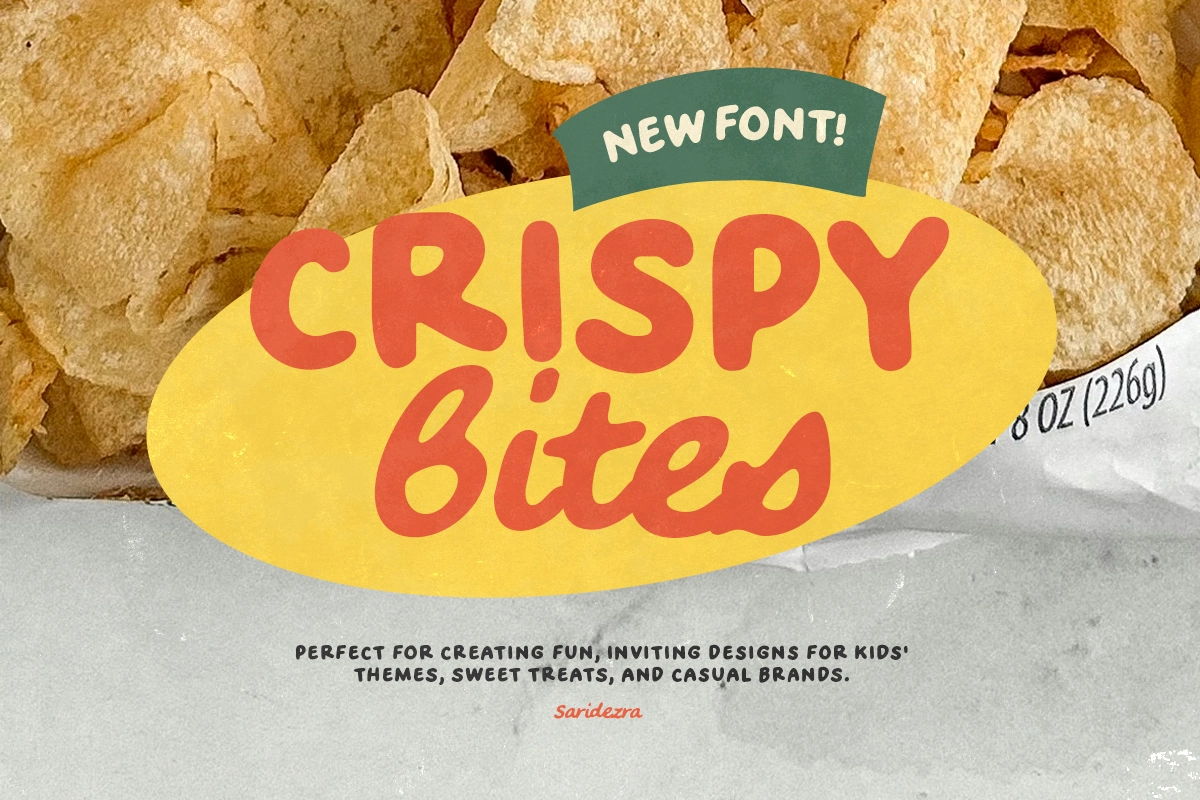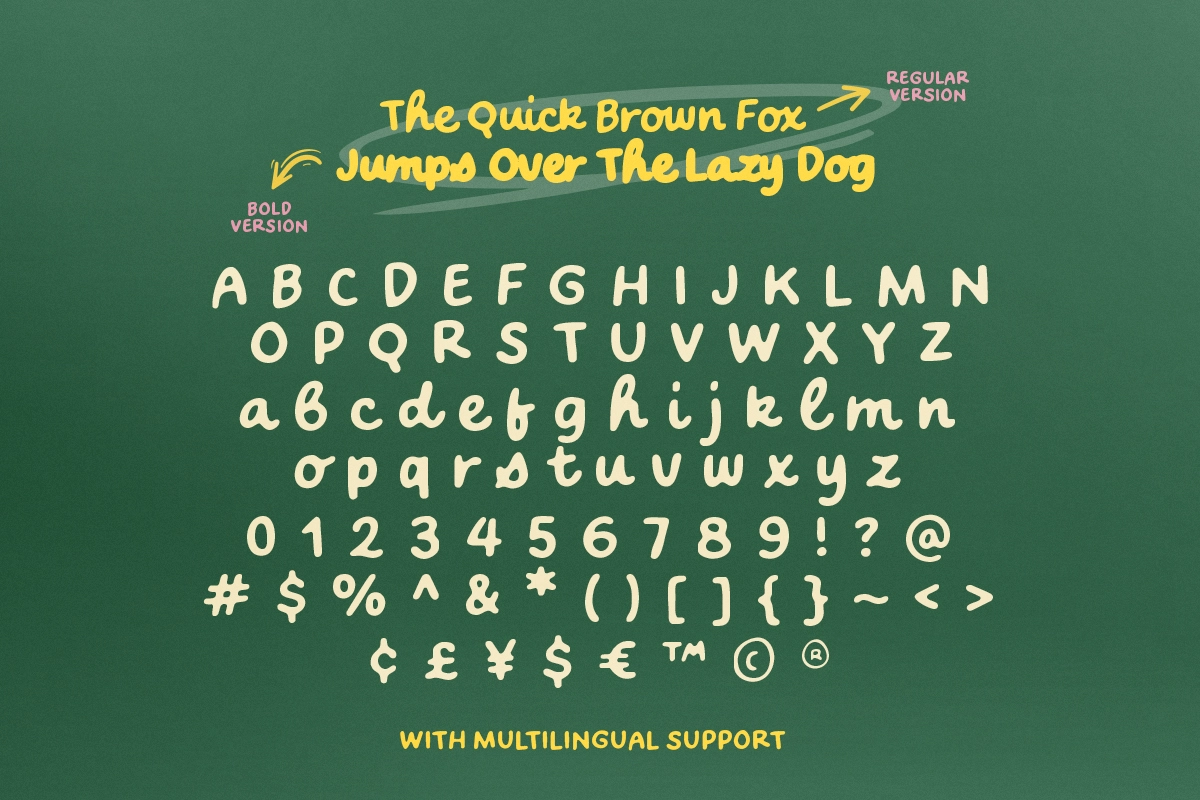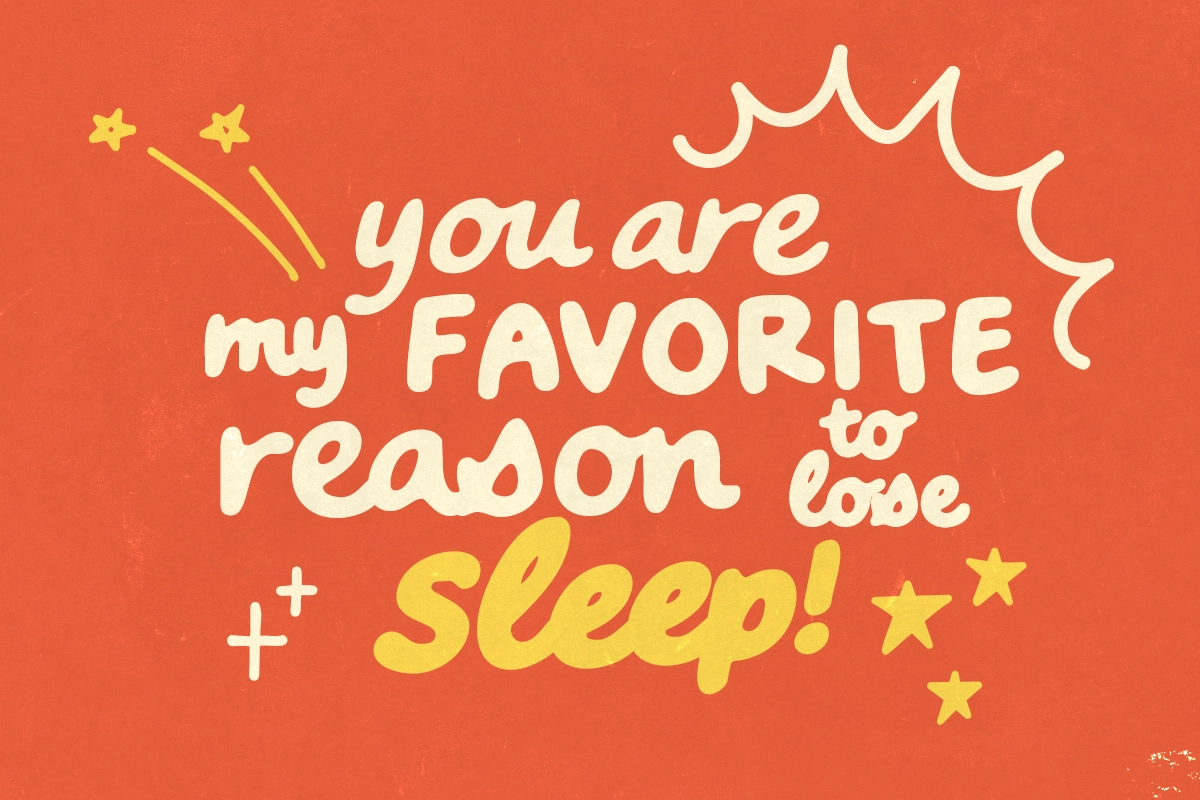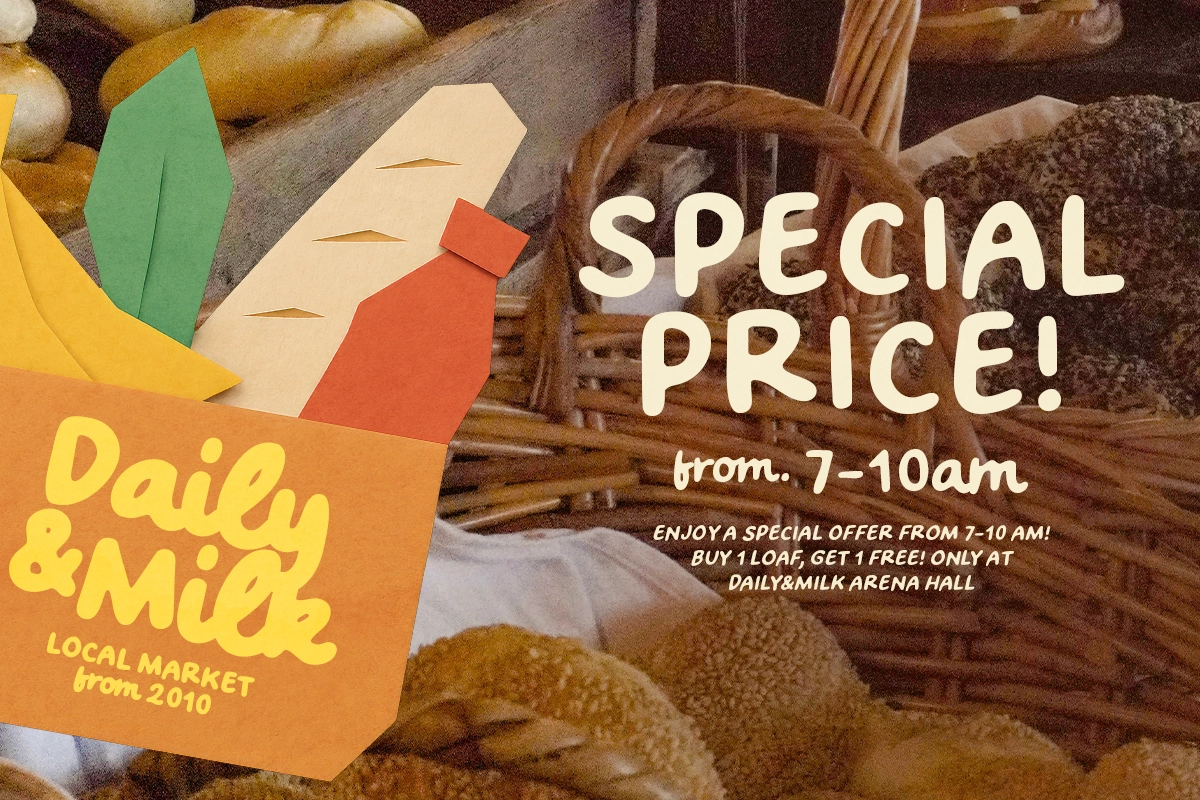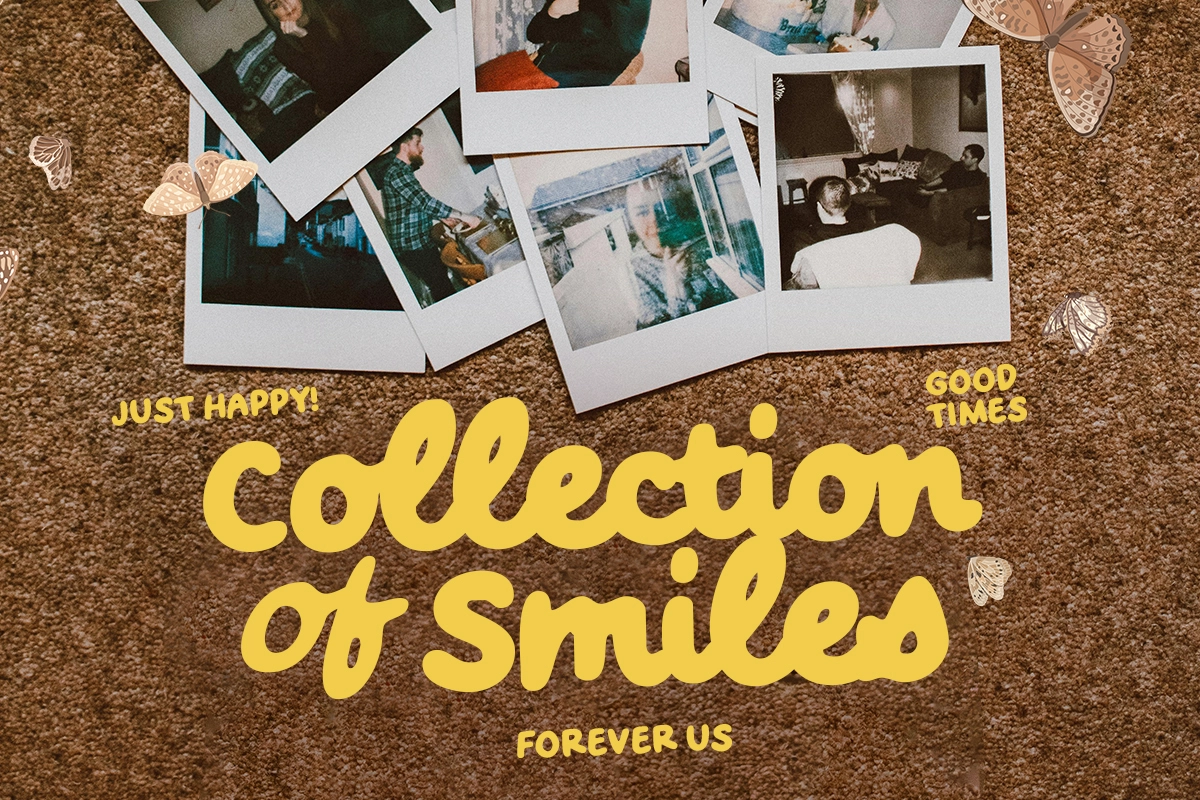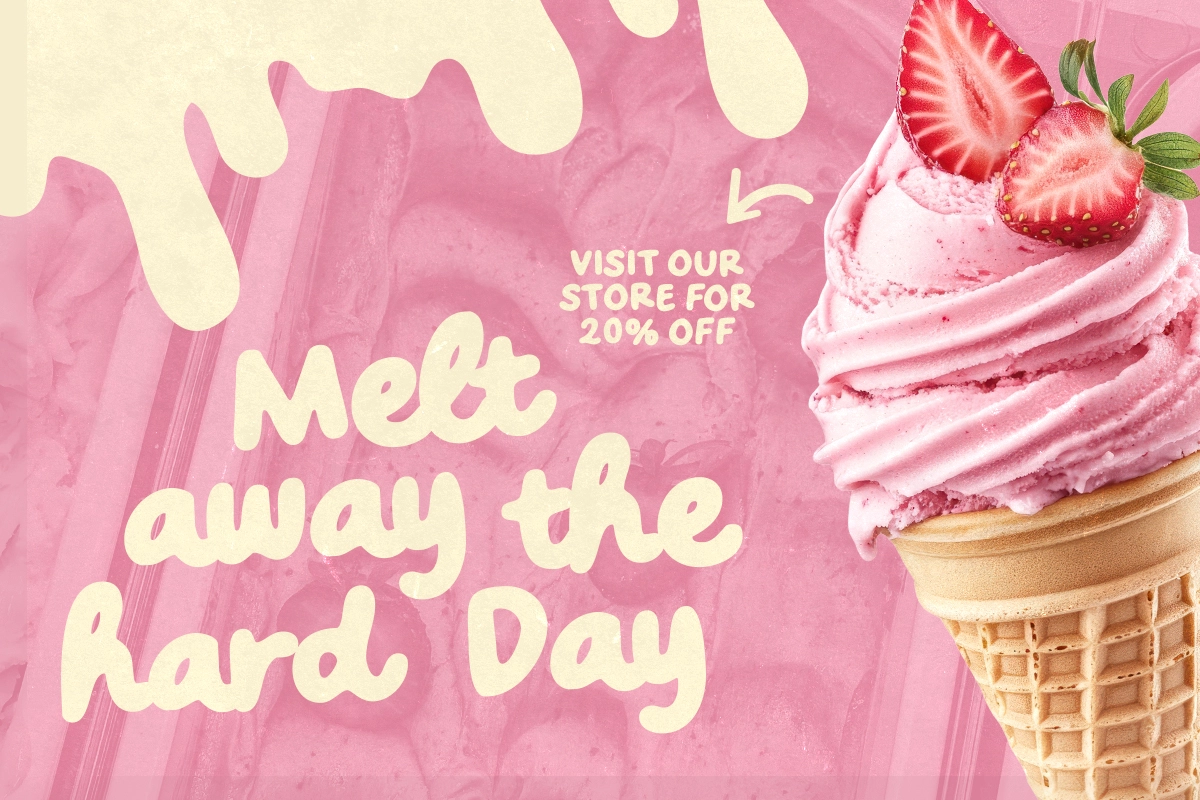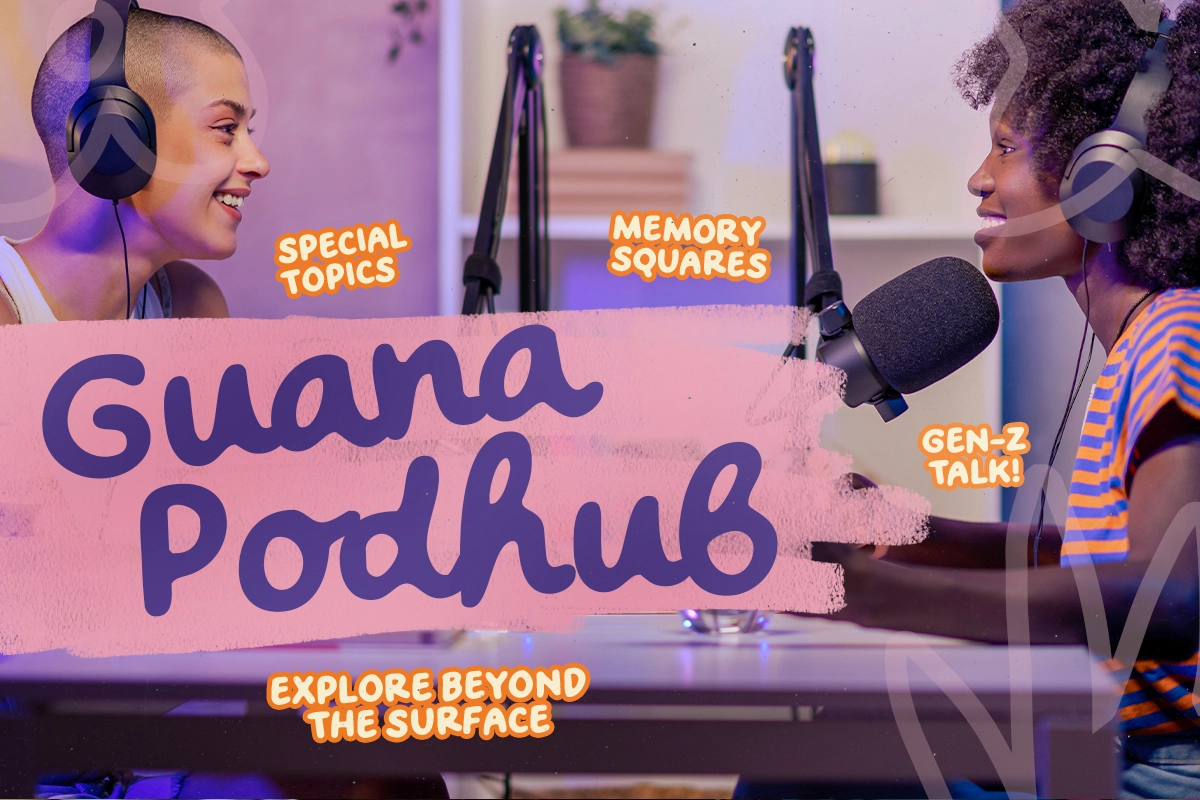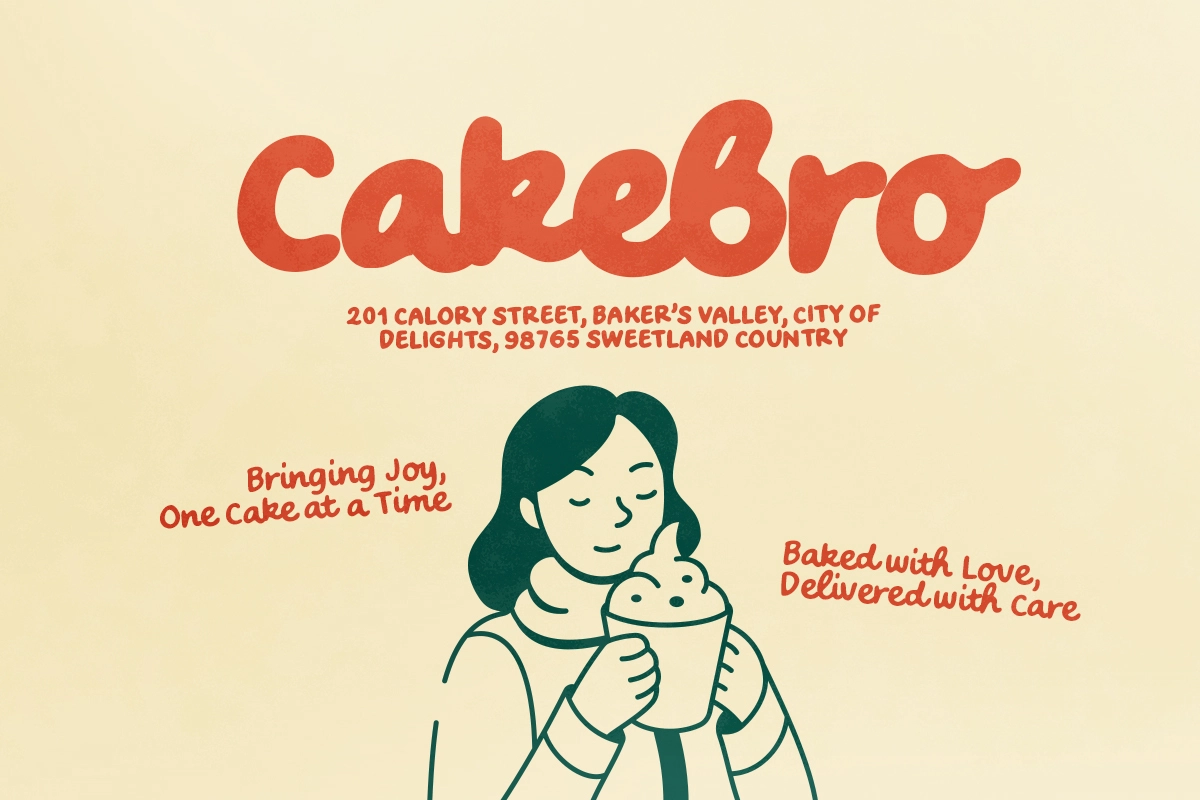
Crispy Bites - Cute Handwritten Font
Crispy Bites has the easy warmth of hand-painted café signage and children’s picture books, with rounded strokes and a playful bounce that recalls scrapbook lettering from the late 1990s and early 2000s. It suits packaging, kids’ branding, stickers, social media quotes, market posters, café menus, and cheerful logo work, especially where a friendly, homemade tone should feel immediate and clear.
- Smooth and rounded letterforms